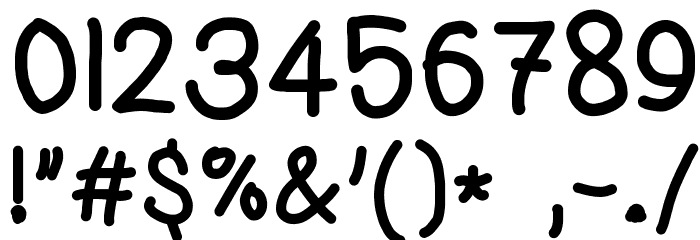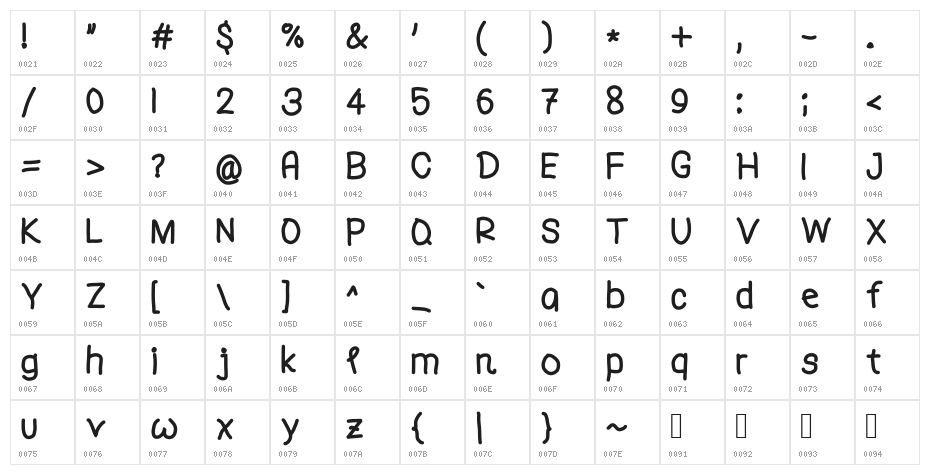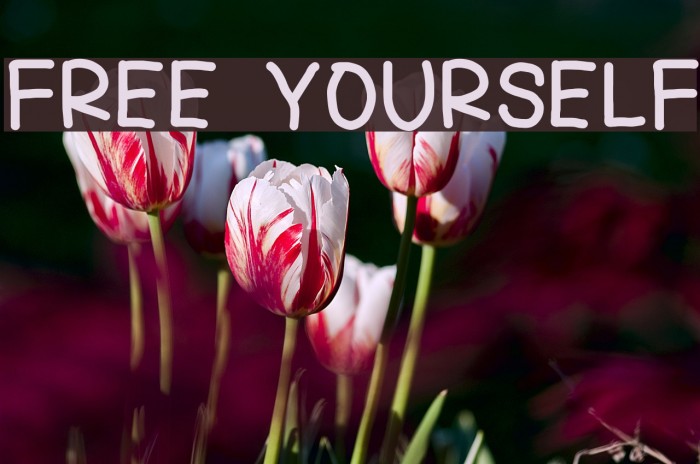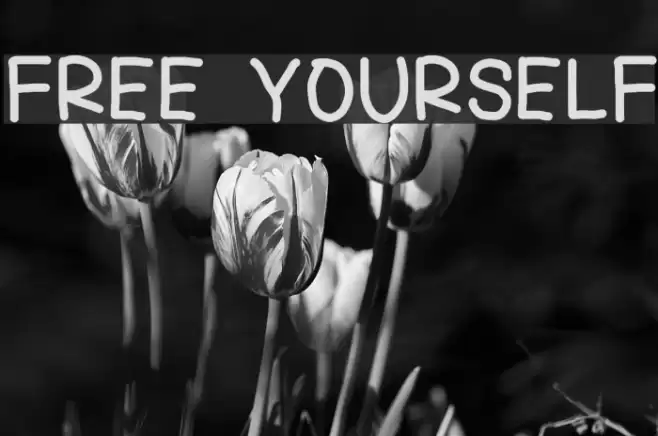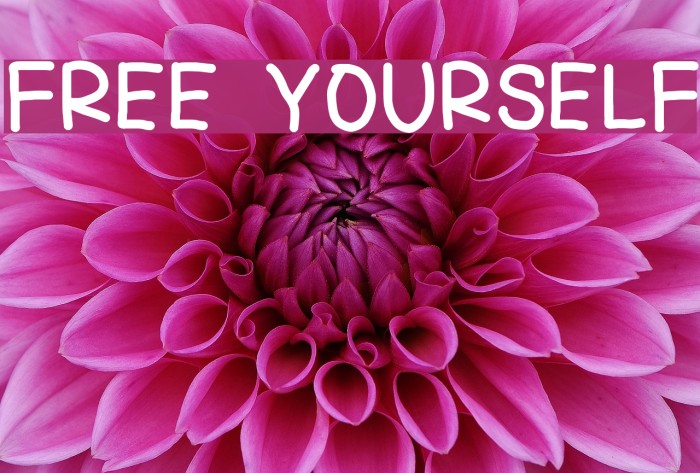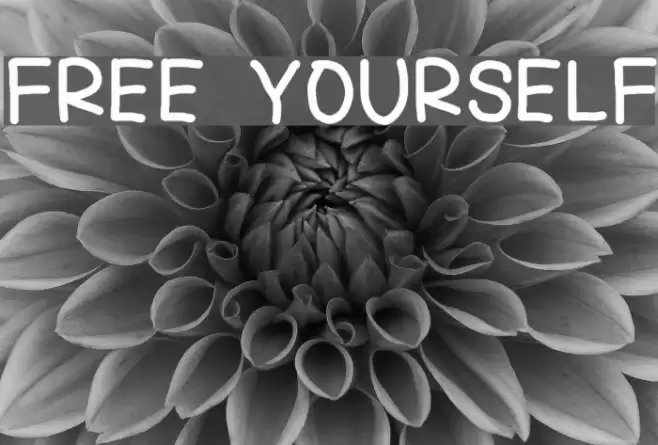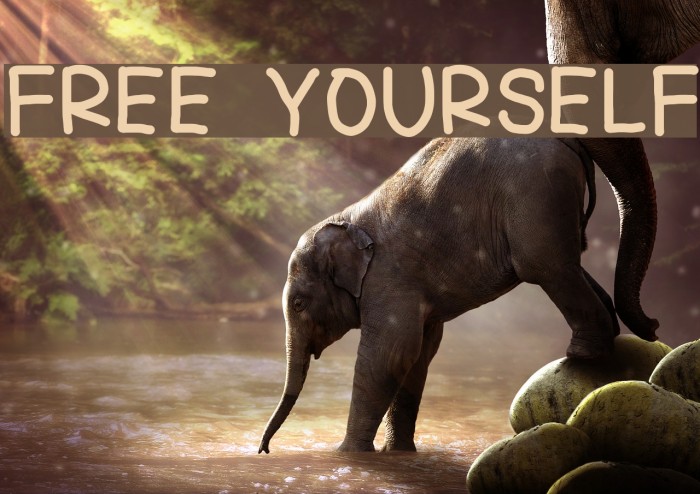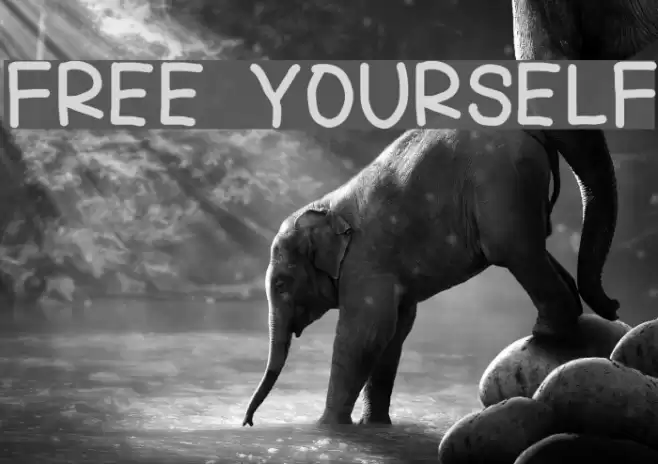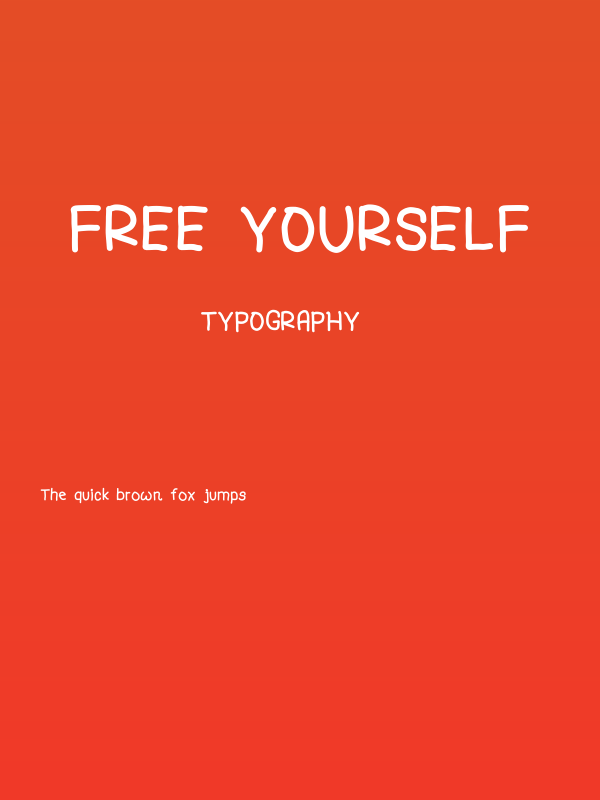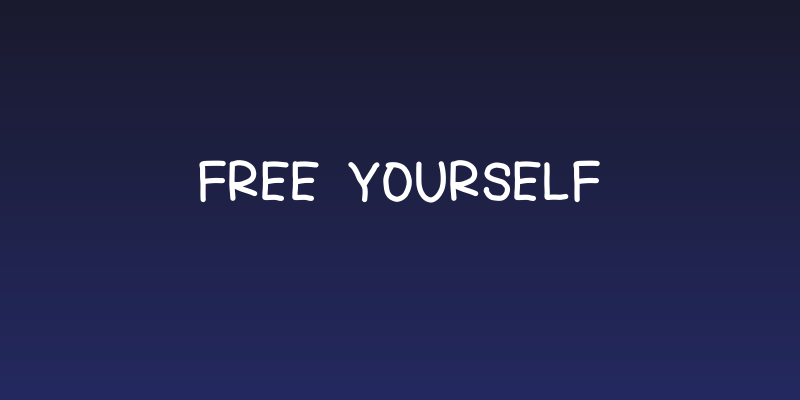
FREE YOURSELF Font
FREE YOURSELF Description
This playful and whimsical font features rounded, slightly irregular characters that give it a hand-drawn appearance. The uppercase and lowercase letters maintain a consistent style, with smooth curves and a friendly demeanor. The numbers and special characters follow the same design ethos, ensuring a cohesive look across all text. This font's informal style makes it ideal for projects that require a personal touch or a sense of fun. The strokes are uniform in thickness, providing a balanced and approachable feel. Its simplicity and charm make it versatile for various creative applications.
| Proposed Projects | Ideal for children's books, greeting cards, playful branding, and casual invitations. |